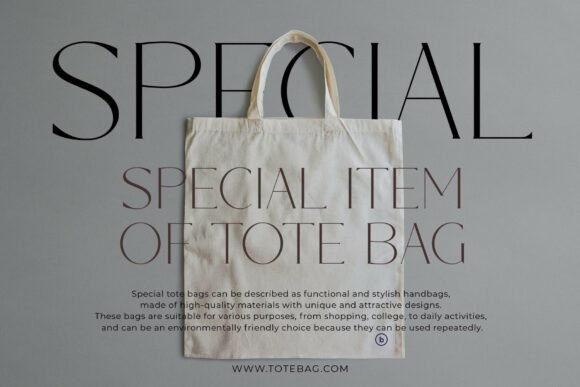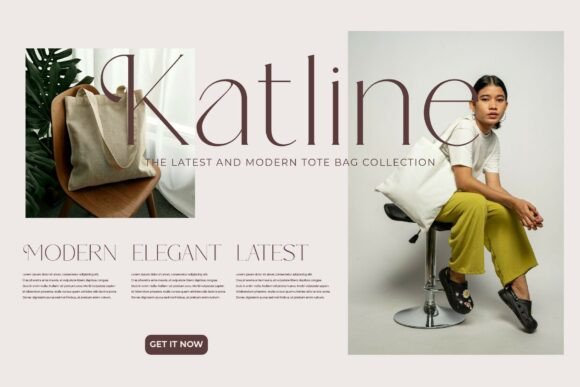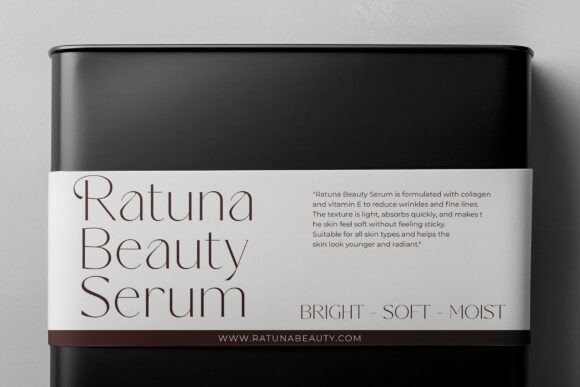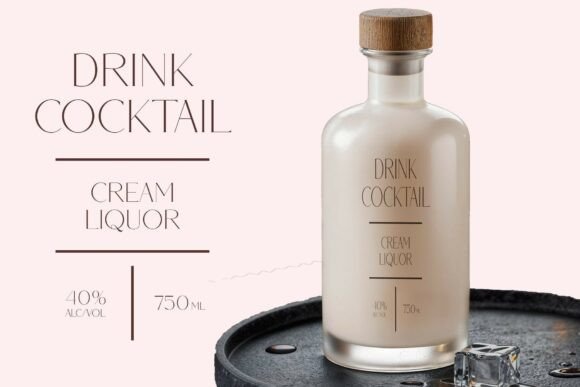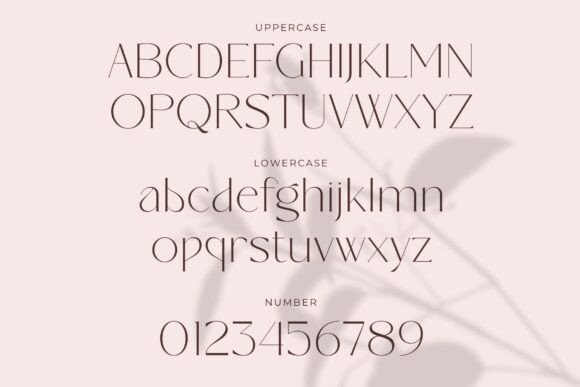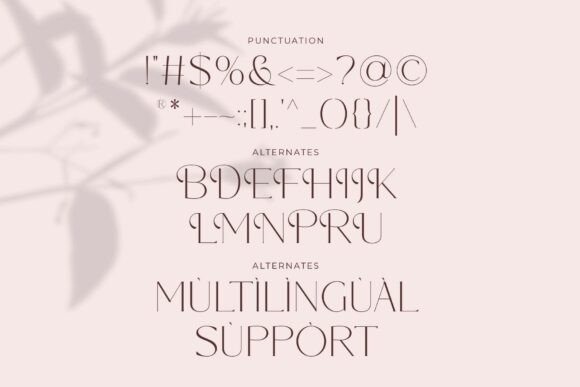
Introducing Bandana: A Modern and Elegant Serif Font
In the world of typography, a font can make or break a brand’s visual identity. For designers and crafters looking to elevate their brand’s narrative, Bandana is a game-changer. This modern and elegant serif font is meticulously designed to bridge the gap between classical refinement and contemporary minimalism, making it perfect for luxury lifestyle branding, sophisticated editorial layouts, bespoke wedding stationery, and high-end cosmetic packaging.
The Unique Features of Bandana
Bandana’s design is characterized by high-contrast strokes and slender, architectural stems that exude a sense of sophistication and refinement. The font’s most striking features are the graceful, curling flourishes on the initial characters and the unique, diagonal stencils within the circular glyphs. These distinctive elements lend a signature look to every headline, setting Bandana apart from other serif fonts.
Elevate Your Brand’s Visual Narrative
With Bandana, you can define your brand’s visual narrative and create a lasting impression on your audience. The font’s polished artisanal prestige and effortless, human-centric beauty make it perfect for brands looking to convey a sense of luxury and sophistication. Whether you’re designing a logo, creating editorial content, or crafting bespoke wedding stationery, Bandana is the perfect choice.
The Benefits of Using Bandana
So, what makes Bandana an exceptional choice for designers and crafters? Here are just a few benefits of using this elegant serif font:
- Luxury Lifestyle Branding: Bandana’s sophisticated design makes it perfect for luxury lifestyle branding, where a sense of refinement and elegance is paramount.
- Sophisticated Editorial Layouts: The font’s high-contrast strokes and slender stems make it ideal for editorial layouts, where readability and style are essential.
- Bespoke Wedding Stationery: Bandana’s elegant design and unique flourishes make it perfect for bespoke wedding stationery, where a sense of romance and sophistication is desired.
- High-End Cosmetic Packaging: The font’s polished artisanal prestige and effortless beauty make it ideal for high-end cosmetic packaging, where a sense of luxury and sophistication is crucial.
Tips for Using Bandana Effectively
To get the most out of Bandana, here are a few tips for using the font effectively:
- Use it sparingly: Bandana is a statement font, so use it sparingly to create a lasting impression.
- Pair it with a sans-serif font: Pairing Bandana with a sans-serif font can create a beautiful contrast and add visual interest to your design.
- Experiment with different sizes: Bandana’s elegant design works well at a variety of sizes, so experiment with different sizes to find the one that works best for your design.
In conclusion, Bandana is a modern and elegant serif font that is perfect for designers and crafters looking to elevate their brand’s visual narrative. With its unique features, polished artisanal prestige, and effortless beauty, Bandana is an exceptional choice for luxury lifestyle branding, sophisticated editorial layouts, bespoke wedding stationery, and high-end cosmetic packaging. Whether you’re a seasoned designer or a crafty entrepreneur, Bandana is sure to make a lasting impression on your audience.